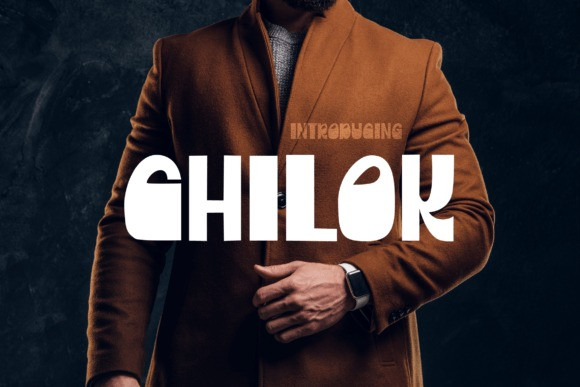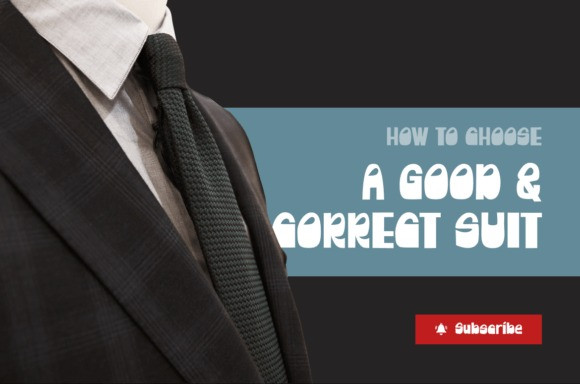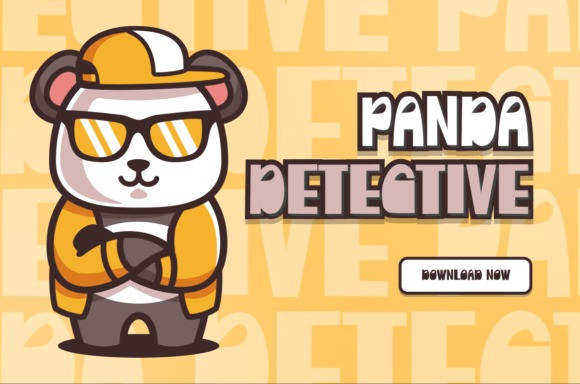
Chilok Font
CHILOK – Elegant Display Font
Heavy at the bottom and looking quite elegant. CHILOK will be putting more weight on the word it is written.
Suit perfectly for mature and encouraging themes books market, economic posters, stationery, school supplies font, youtube covers, youtube thumbnails, social media page covers, and so on…